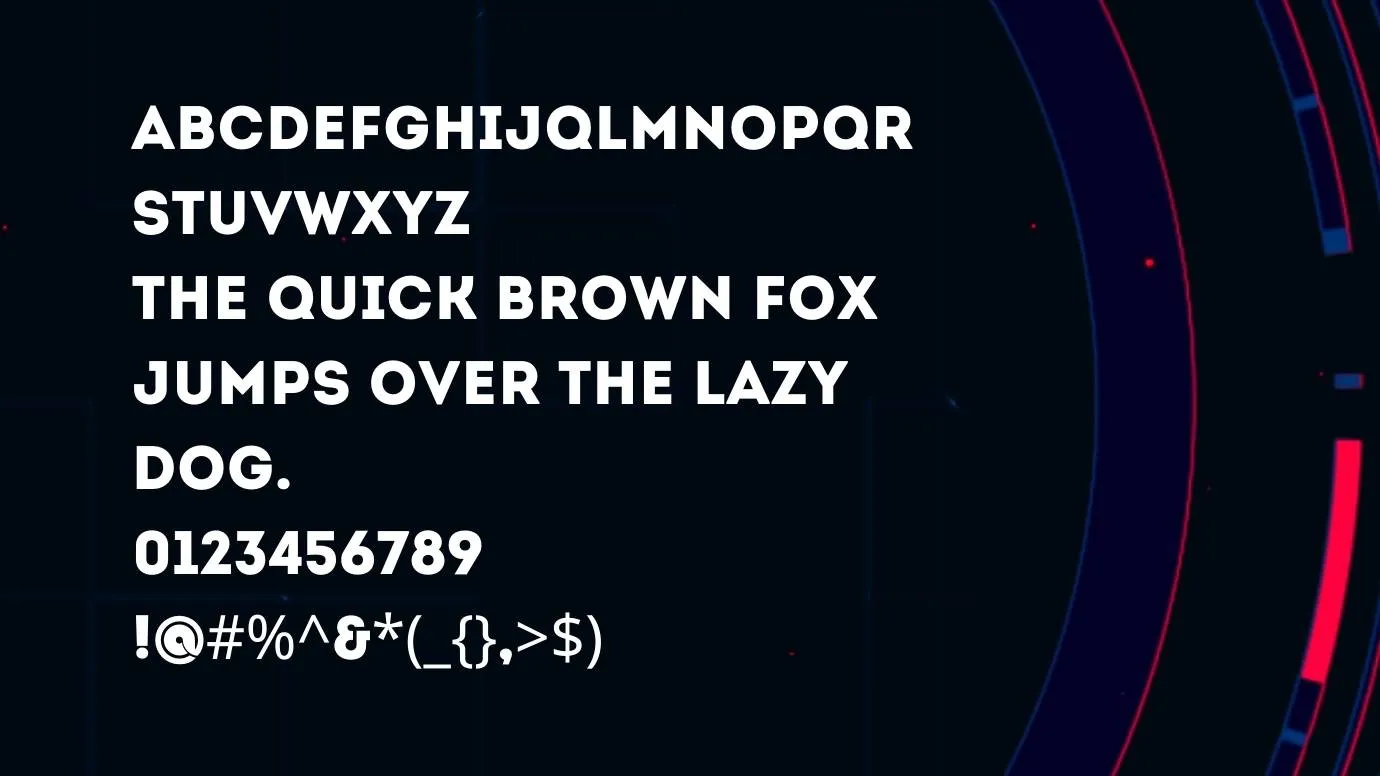
Intro Font has a bold and prominent texture appearance with sharp edges. It is an excellent typeface that can easily provide modern and visible vibes to your designs at the same time. This typeface belongs to the Sans-Serif fonts. This font style is compatible with large size screen displays. But it is not appropriate to utilize it on the small-size screen displays. You can utilize this font style for headings and display purposes. This font style is not appropriate for long texts.
This typeface also has a pairing nature that can easily make pair with other font styles. So you can use this typeface and combine it with other typefaces to create amazing designs. It has also some similar fonts. But we have searched that Sugo font has the most similar personalities with this font. So, you can also use this font style as an alternative to this font. This font style has also been listed among the font libraries of the Adobe and Google fonts.
Creator of Intro Font
This bold and elegant texture style is designed by Svet Simov. He was a qualified typography designer that has also created many amazing typefaces.
Each style of this family is comprised of capital letters, small letters, glyphs, punctuations, numbers, symbols, special characters, and many languages support.
Is Intro a good font?
What is Intro font used for?
This font style has no limitations of usage. This font style is also utilized in creating posters, banners, T-shirt designs, Pana flex, birthday wishes cards, invitation cards, shops names, etc.
Is Intro a web font?
This font style has a bold and clean texture appearance that can also be used for Heding purposest. So, yes this font style is also a web font.